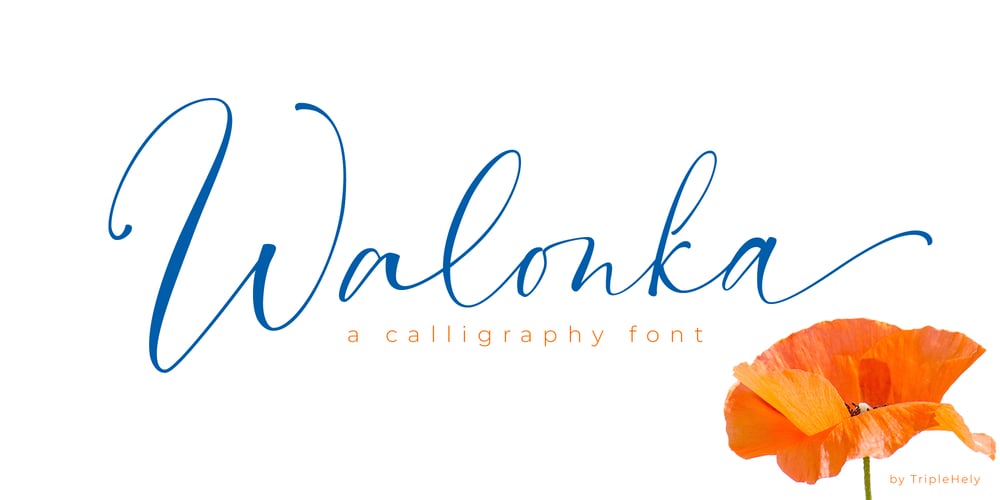
Walonka Font Family was designed by Olga Ktitorova and published by TripleHely. Walonka contains 1 styles and family package options. Hello! Let me introduce Walonka – a modern calligraphy font. With its natural, elegant shapes Walonka is the perfect choice for logos, branding, web, blog headlines, invitations, magazine and book design, product packaging – or for any text on postcards and on your favorite photos.Walonka includes: a standard set of characters with wide multilingual support: Western-, Central- and Eastern-European, Baltic, Turkish, Latin-type Africans, and Asian (94 languages in total) two additional character sets: lowercase letters with alternates shapes and lowercase letters without a connection stroke – for the position at the end of a word another two additional lowercase character sets – initial and final swashed forms 75 ligatures for double letters and frequent combinations Walonka has a large number of embedded context-dependent auto-replacement features that give the text a natural, handwritten look and correct inharmonious combinations of letters. These features work well in many apps (even simple ones like Notepad/TextEdit), and if you need to customize their application – you could use programs that support OpenType features (for example, Adobe apps or CorelDraw). All these additional glyphs are PUA-encoded, so if your software does not support OpenType — you could access them through Character Map (Windows) or Font Book (Mac).I hope you will like Walonka and create great designs with it!